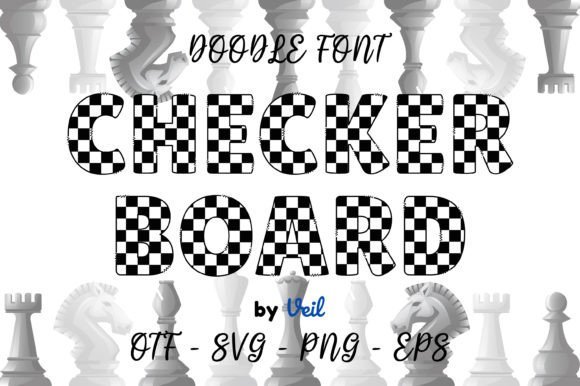
Designing with Whimsy: The Checkerboard Font
Have you ever stared at a blank page, struggling to bring a creative idea to life? I’ve been there too, and I’ve found that sometimes all it takes is a spark of inspiration to get those creative juices flowing. For me, it was a children’s book I read as a kid – the colorful illustrations, the playful font, and the sense of wonder that came with turning each page. It was a moment that made me realize the power of design in shaping our experiences.
One font that’s often used to create this sense of whimsy is the Checkerboard Font. Its unique, grid-like design makes it perfect for conveying a playful or artistic feel. Whether you’re designing a children’s book, a poster, or a greeting card, the Checkerboard Font is a valuable tool in your creative arsenal.
By incorporating the Checkerboard Font into your designs, you can add a touch of personality and visual interest that will capture your audience’s attention and leave a lasting impression.
Checkerboard Font Key Features
- Unique Checkerboard Pattern: The Checkerboard Font features a distinctive grid-like design with alternating black and white squares, creating a visually striking effect.
- Font Styles: Checkerboard Font offers a range of styles, including regular, bold, italic, and bold italic, allowing for greater flexibility in design applications.
- Design Applications: The Checkerboard Font is suitable for use in a variety of design contexts, including logos, graphics, web design, and print materials, where a bold and eye-catching font is desired.
Designer Review: Checkerboard Font
Overall, I think the Checkerboard Font is a unique and eye-catching addition to any design project. ✨ One of its greatest strengths is its versatility – it can be used in a variety of contexts, from playful branding to edgy editorial content.
- High contrast between light and dark squares makes it easily readable, even in small font sizes
- Customizable options for color, size, and spacing allow for a range of creative possibilities
- Perfect for adding visual interest to text-heavy designs, or creating a bold, graphic statement
However, I do have a few reservations. ⚠️ One of the biggest limitations is its potential for visual overwhelm – if not used judiciously, the checkerboard pattern can quickly become distracting and hard to read.
- May not be suitable for text-heavy content where readability is paramount
- Requires careful consideration to avoid visual clutter and maintain design balance
Despite its limitations, I think the Checkerboard Font is a valuable addition to any designer’s toolkit. With careful use and consideration, it can add a unique touch to any design project.
The Checkerboard Font is a unique and eye-catching font that can add visual interest to your designs. It’s commonly used for titles, headings, and other text elements where you want to draw attention. To get the most out of it, use it sparingly and in combination with other design elements to create a balanced look.
Best Practices
Use the Checkerboard Font in small to medium-sized text to avoid overwhelming the design. Also, make sure to use a clear and readable background to ensure the text is legible.
How do I maintain legibility with Checkerboard Font?
While Checkerboard Font can be visually striking, maintaining legibility is crucial. Designers can achieve this by using a bold or condensed font style, increasing the font size, or using a subtle Checkerboard pattern that doesn’t overpower the text. It’s also essential to ensure that the background color or texture doesn’t interfere with the readability of the text.